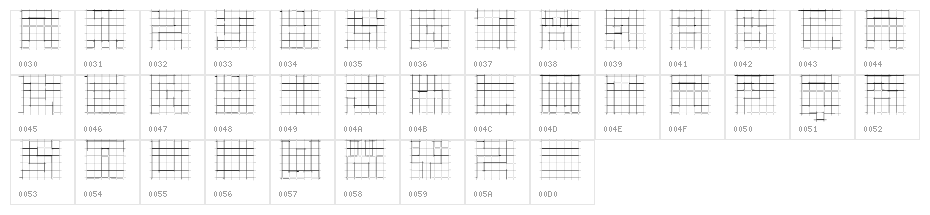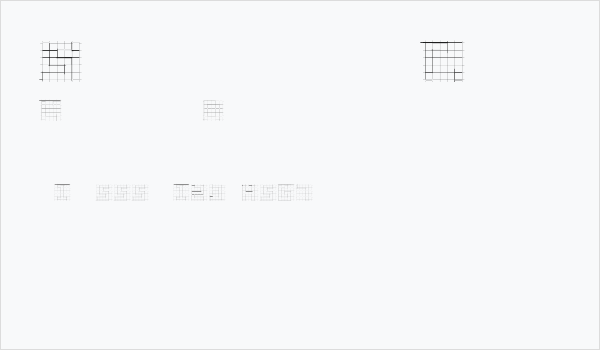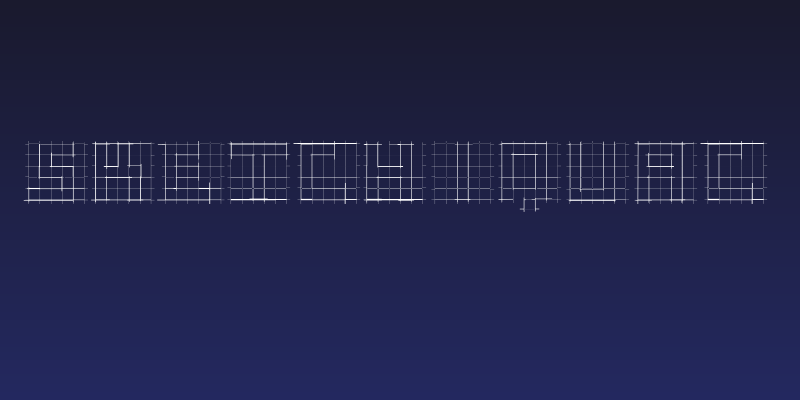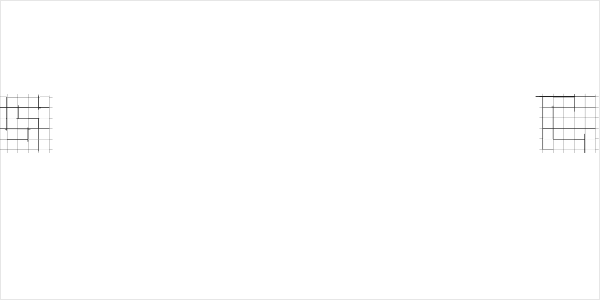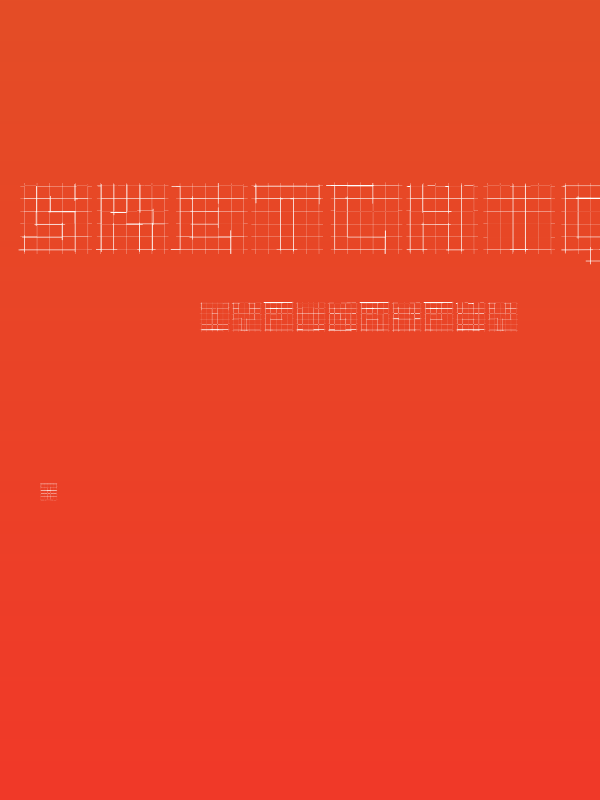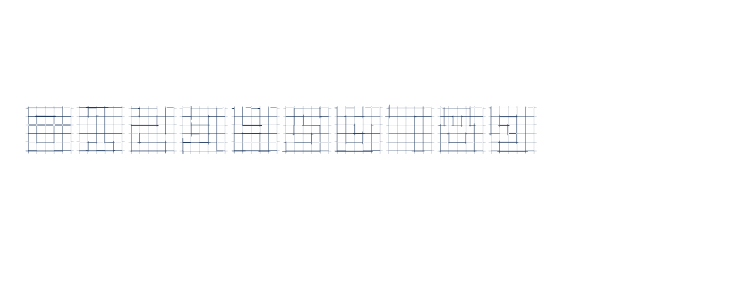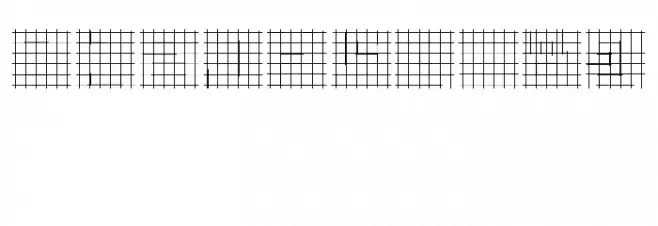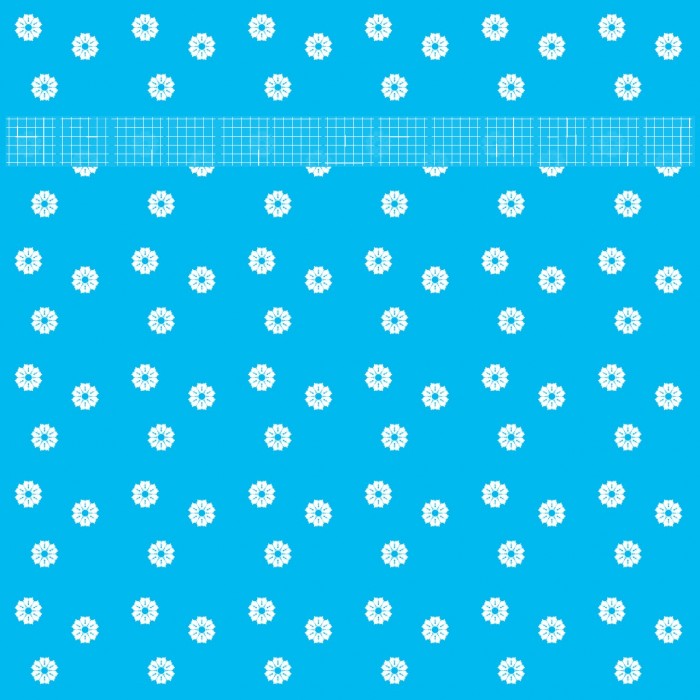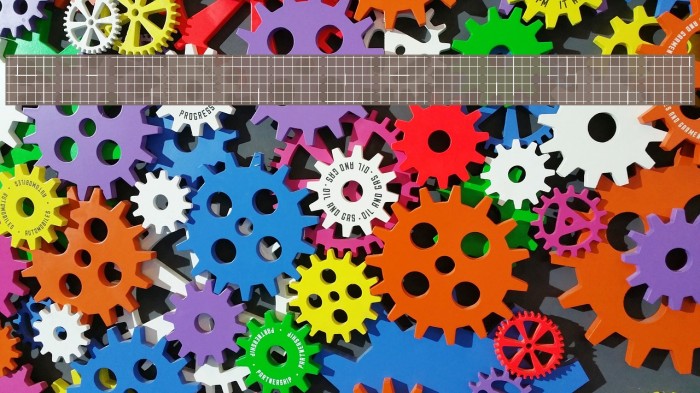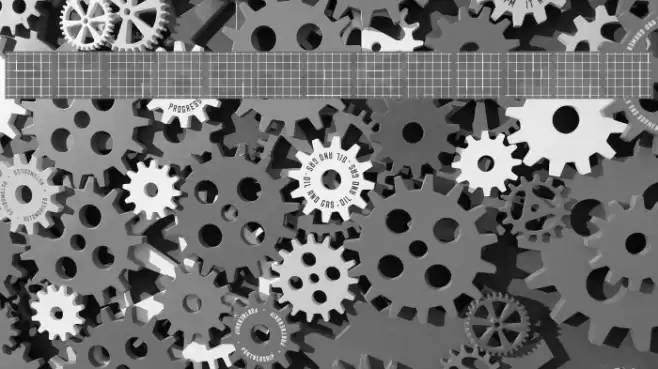
SketchiquaC Font
SketchiquaC Description
This font features a unique grid-based design where each character is composed of a series of intersecting lines, creating a mesh-like appearance. The characters are uniformly structured, giving a consistent and cohesive look across the entire set. The design is highly geometric, with each letter and number fitting perfectly within a square grid. This style gives the font a modern and technical feel, reminiscent of digital displays or architectural blueprints. The uniformity and precision of the lines suggest a meticulous and calculated approach to design, making it stand out as both artistic and functional.
| Use Case | Logos, Headlines, Digital Displays |
| Proposed Projects | Ideal for digital displays, architectural designs, tech branding, and modern art projects. |